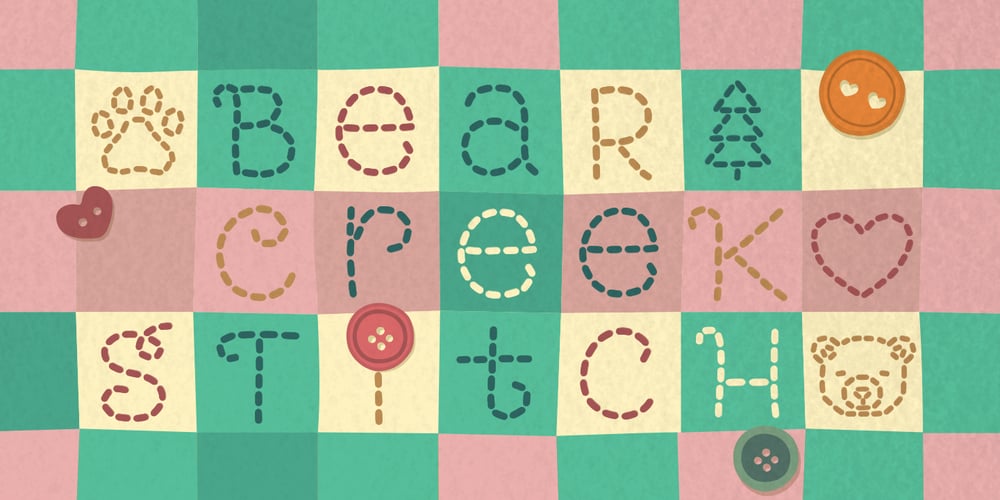
Bear Creek Stitch
Bear Creek Stitch font
Bear Creek Stitch Font Family was designed by Ming Ong and published by Dear Sue. Bear Creek Stitch contains 1 styles and family package options. Bear Creek Stitch is a cute hand stitching font. Its typeface is rounded in style, hand sewn in a whimsical manner, yet perfectly legible. Threaded in are playful little flourishes here and there on the letters, with plenty of options! And not to mention there’s a few bear and cabin themed icons mixed in! Great for quilting, sewing and craft-inspired looks, or wherever you need to bring in that country charm for that home sweet home feeling.